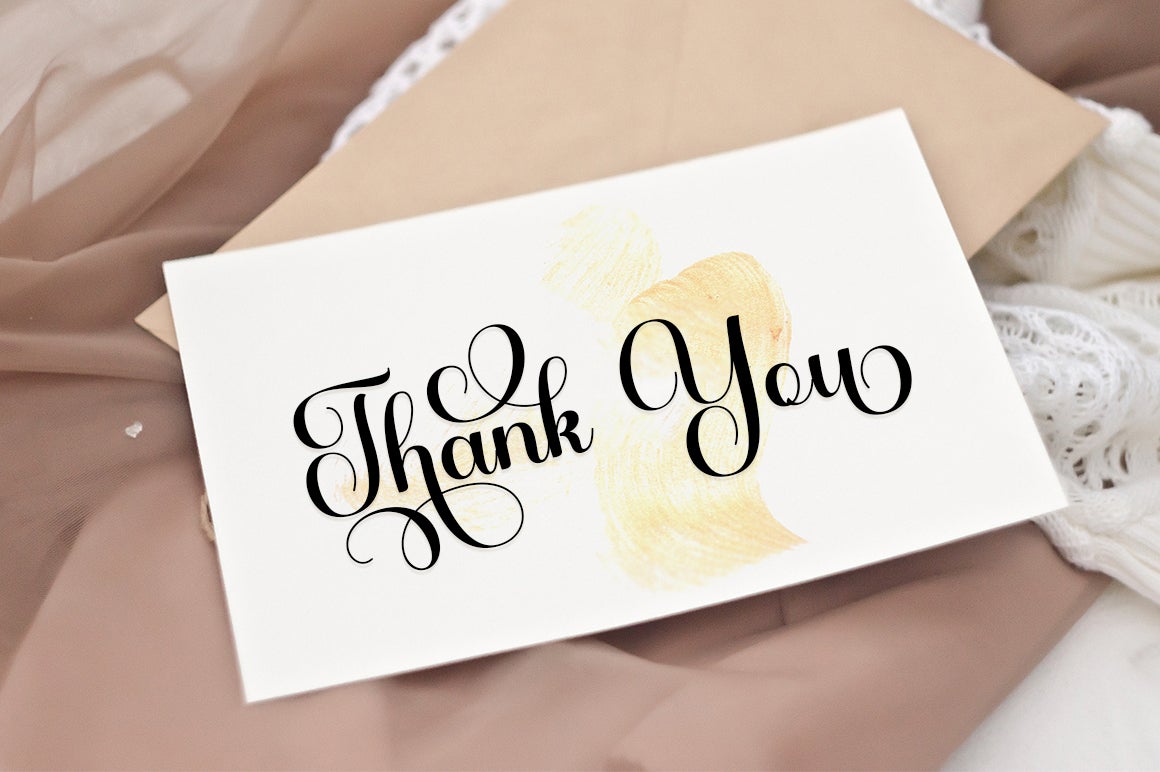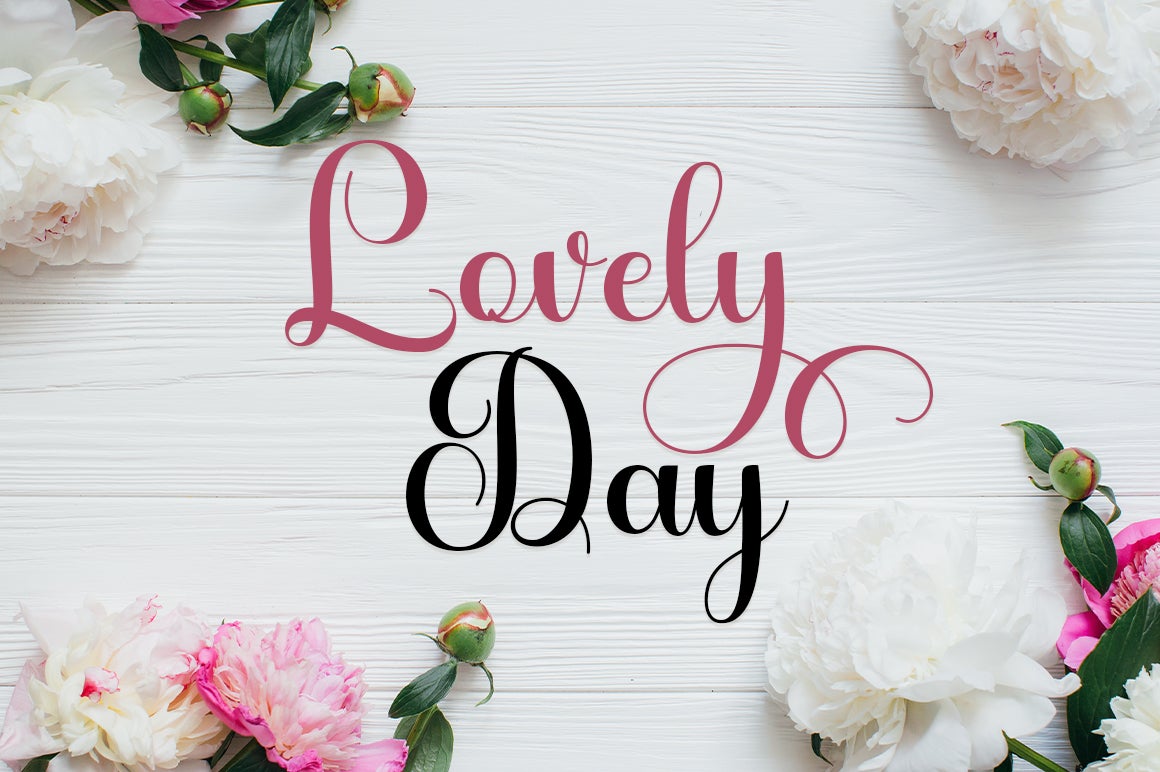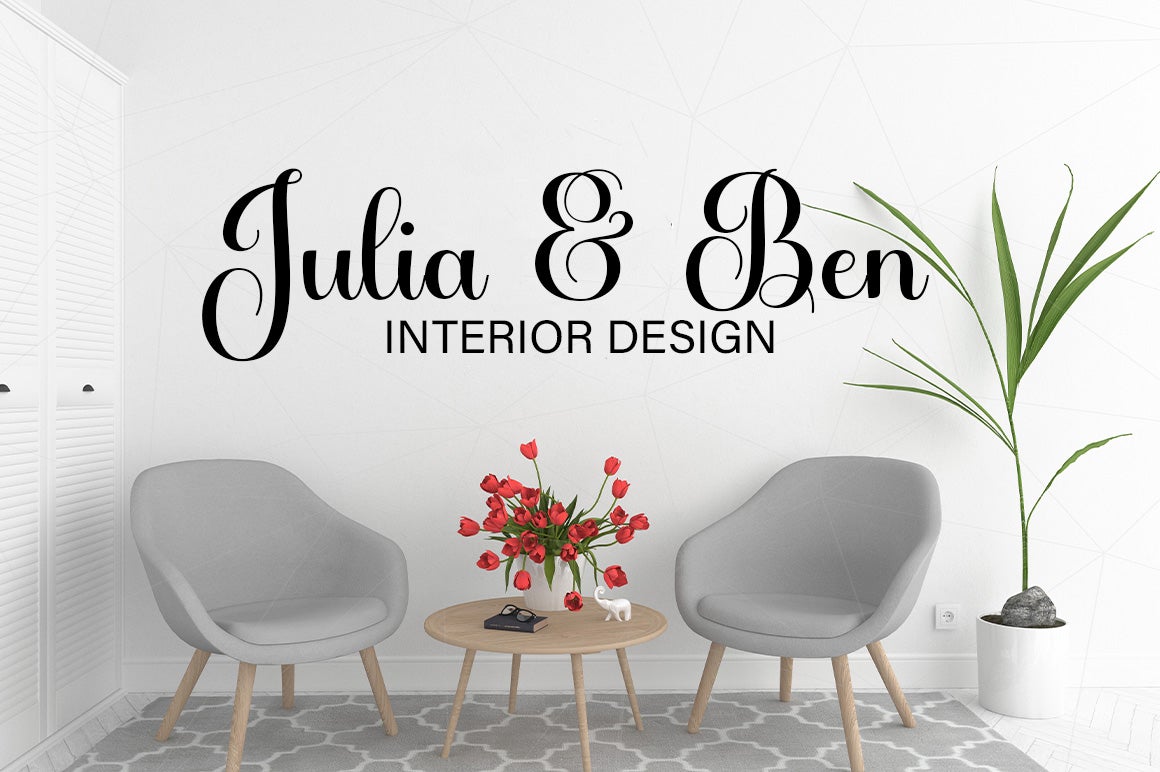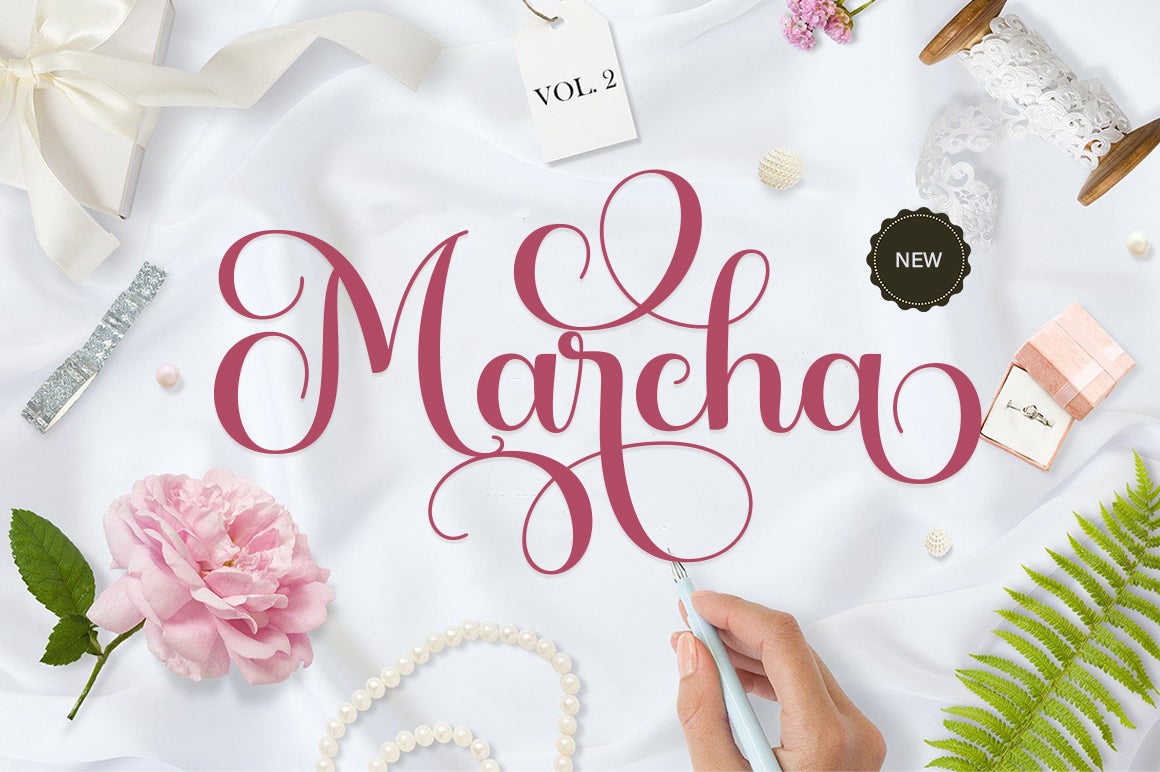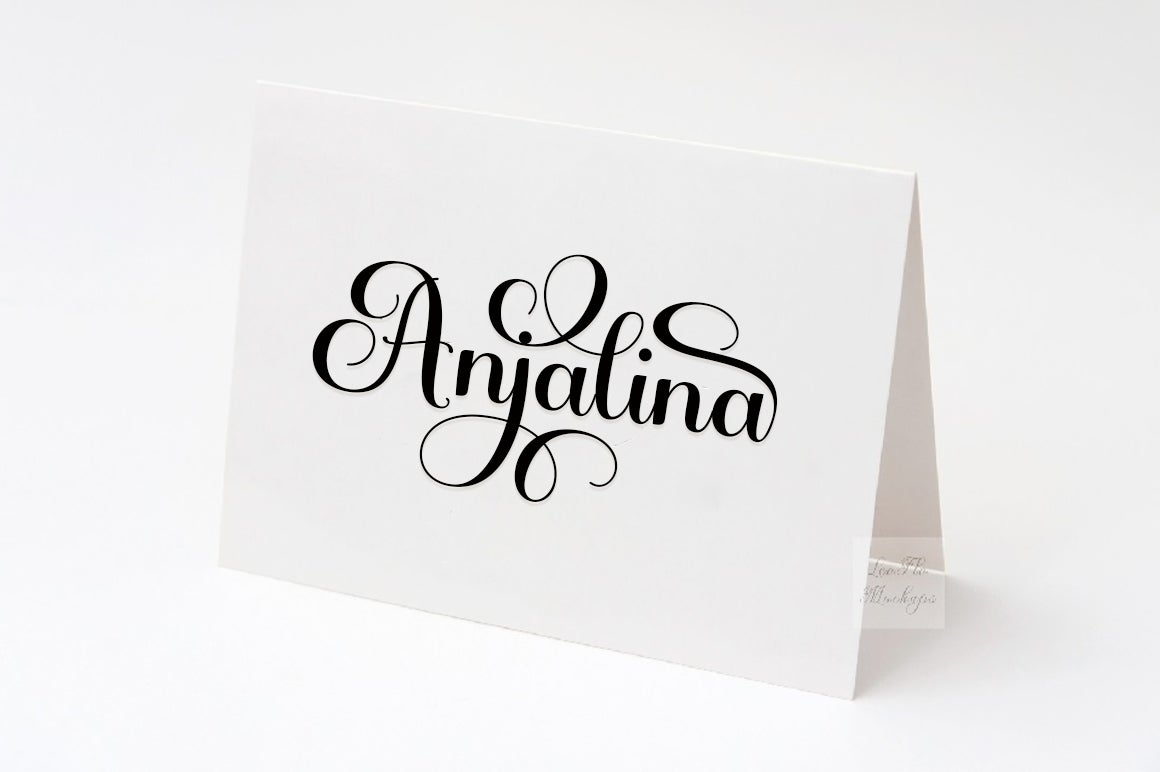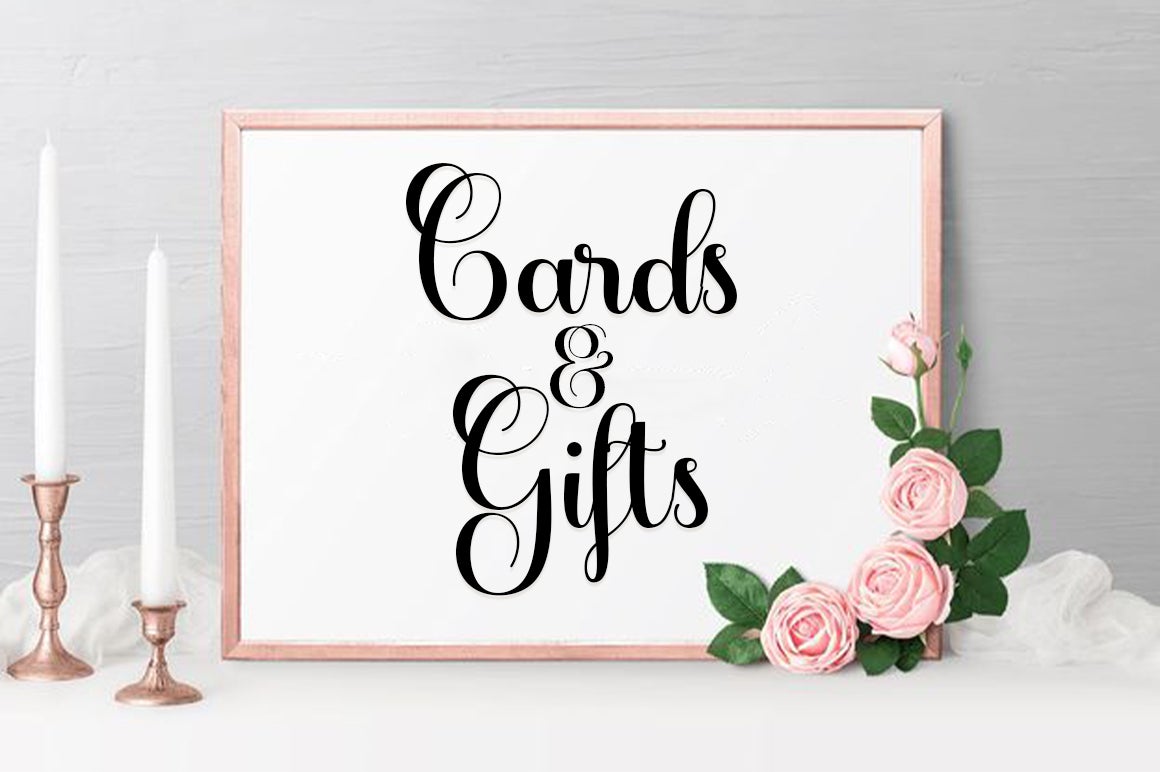
Marcha
Marcha is a sleek, refined script font. It looks dazzling on wedding invitations, thank you cards, quotes, greeting cards, logos, business cards and every other design which needs a customized touch. This font is PUA encoded which means you can access all of the glyphs and swashes with ease!